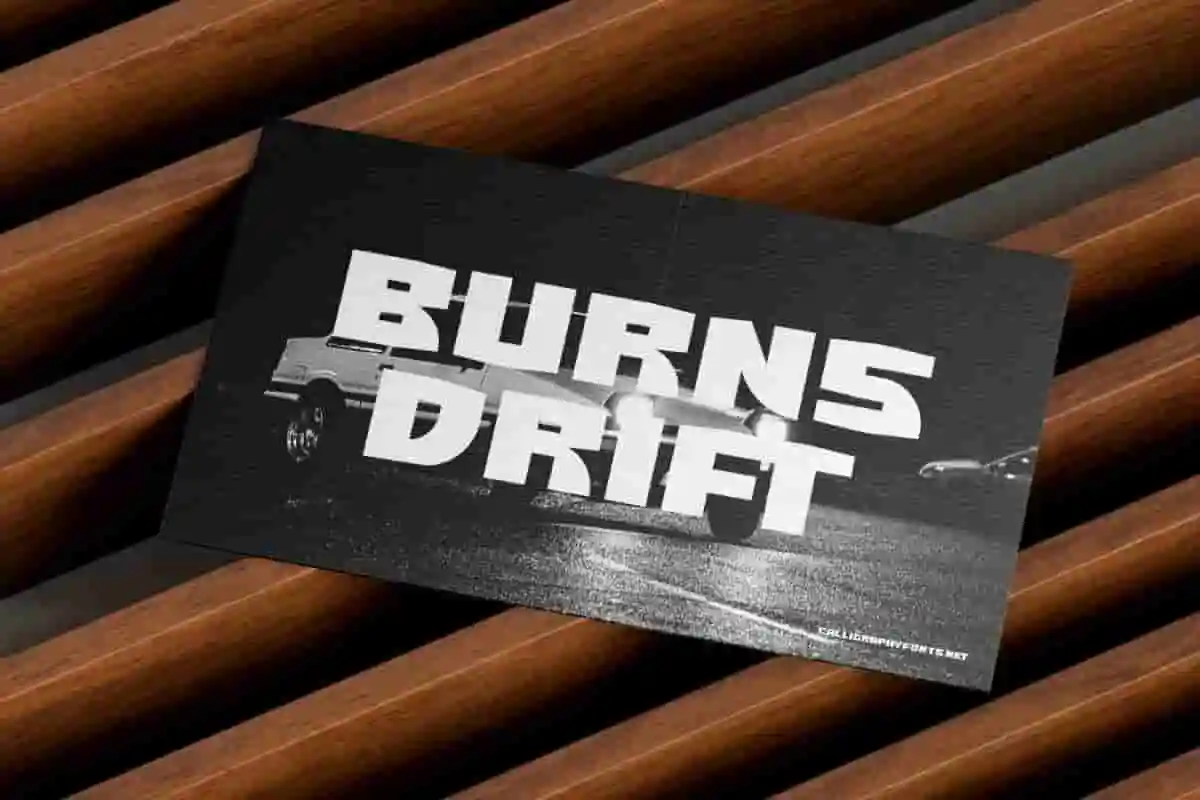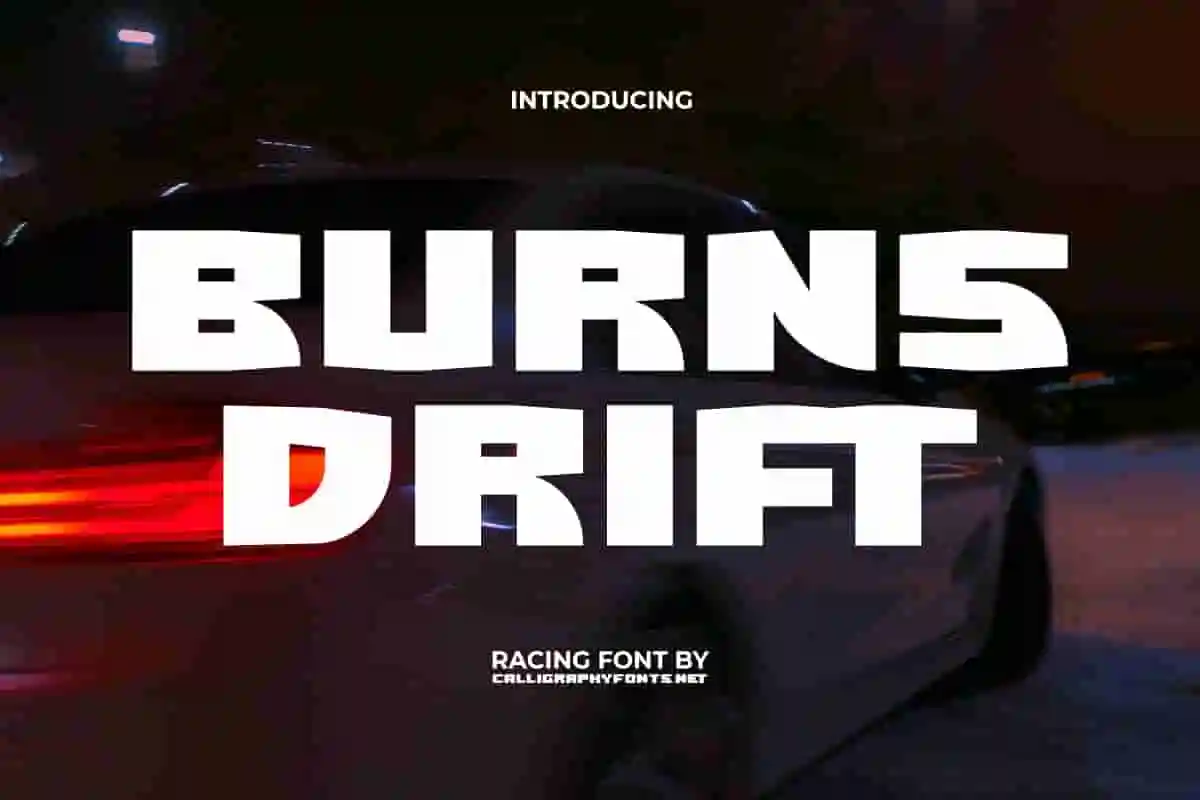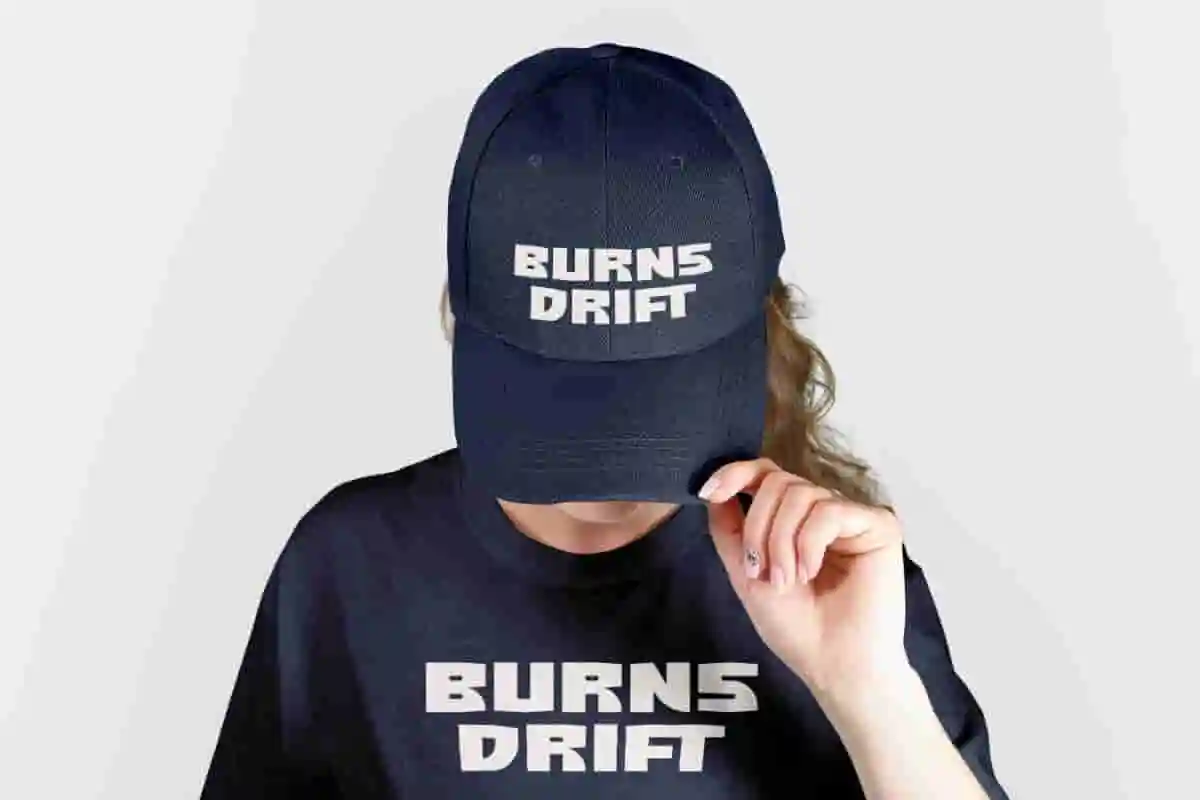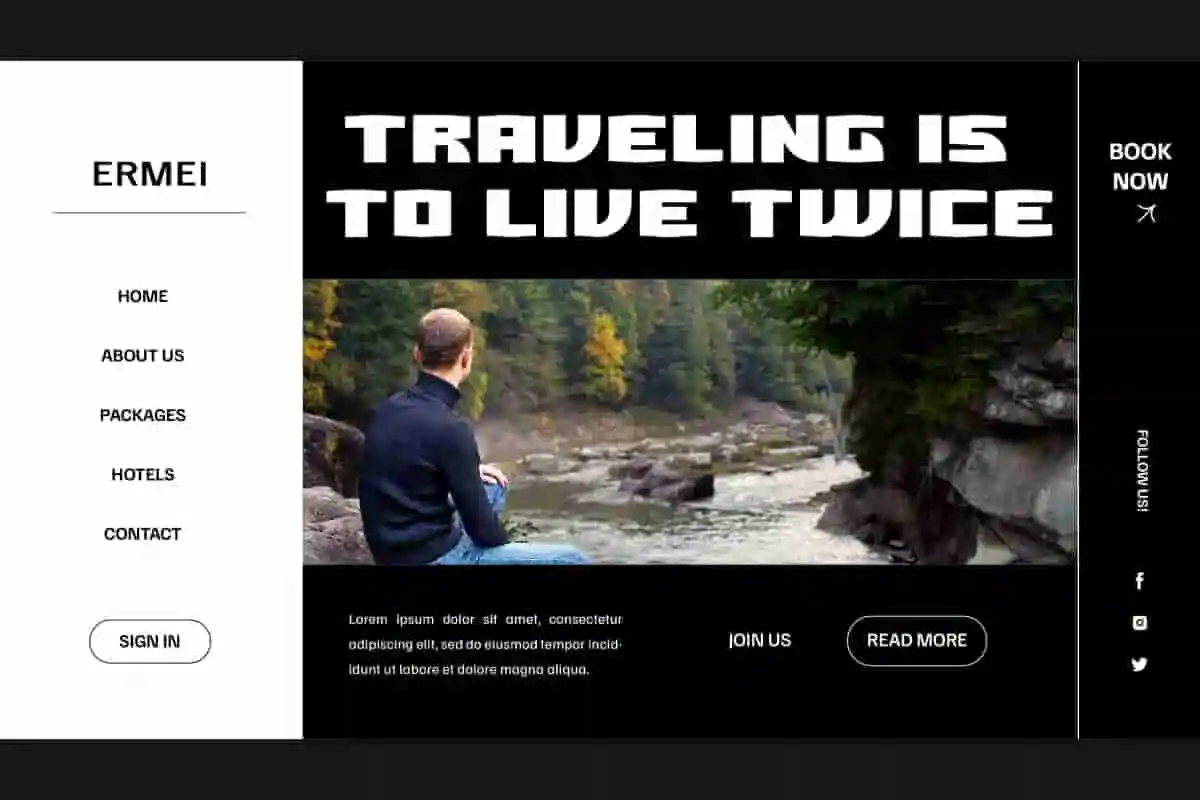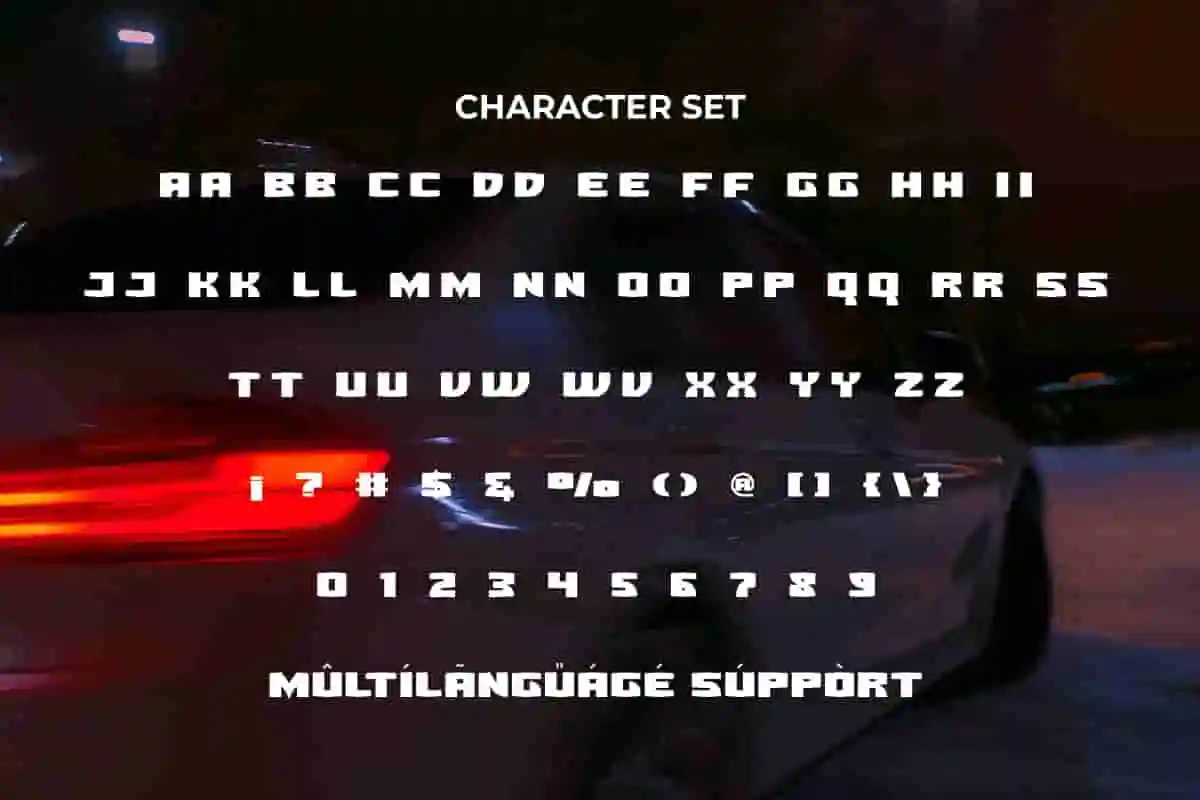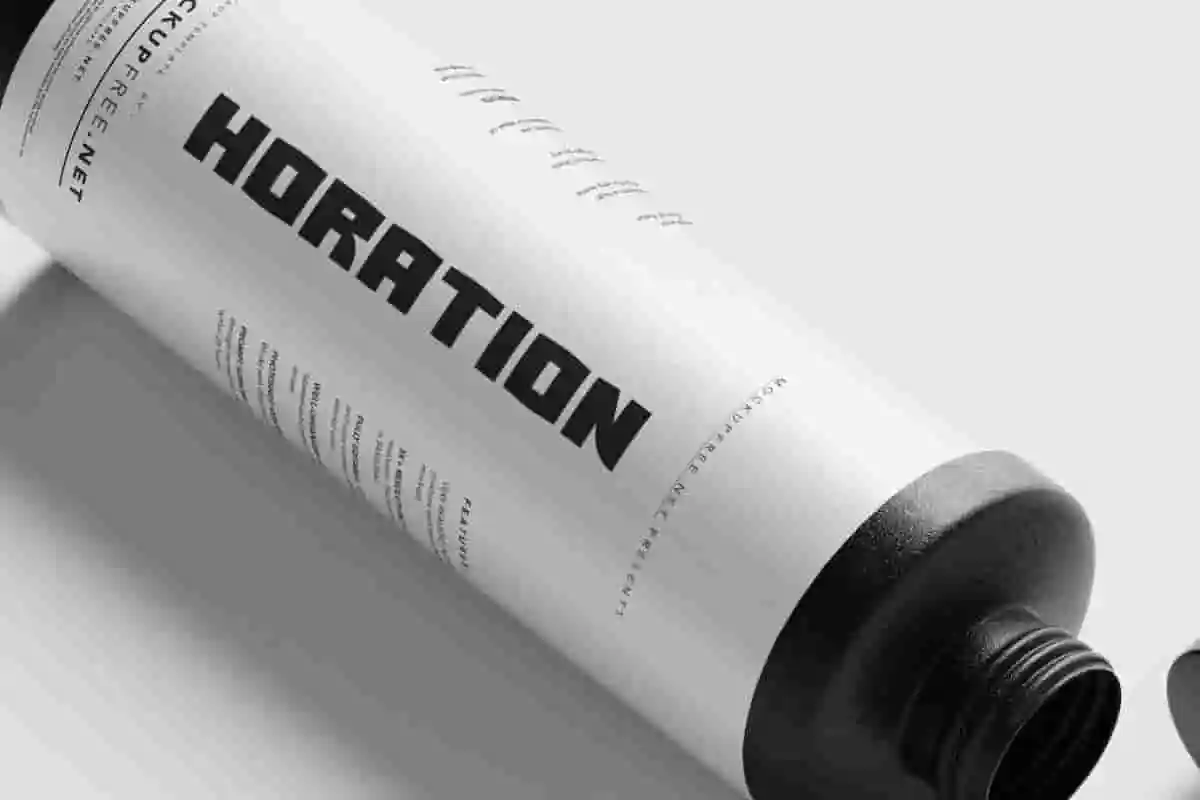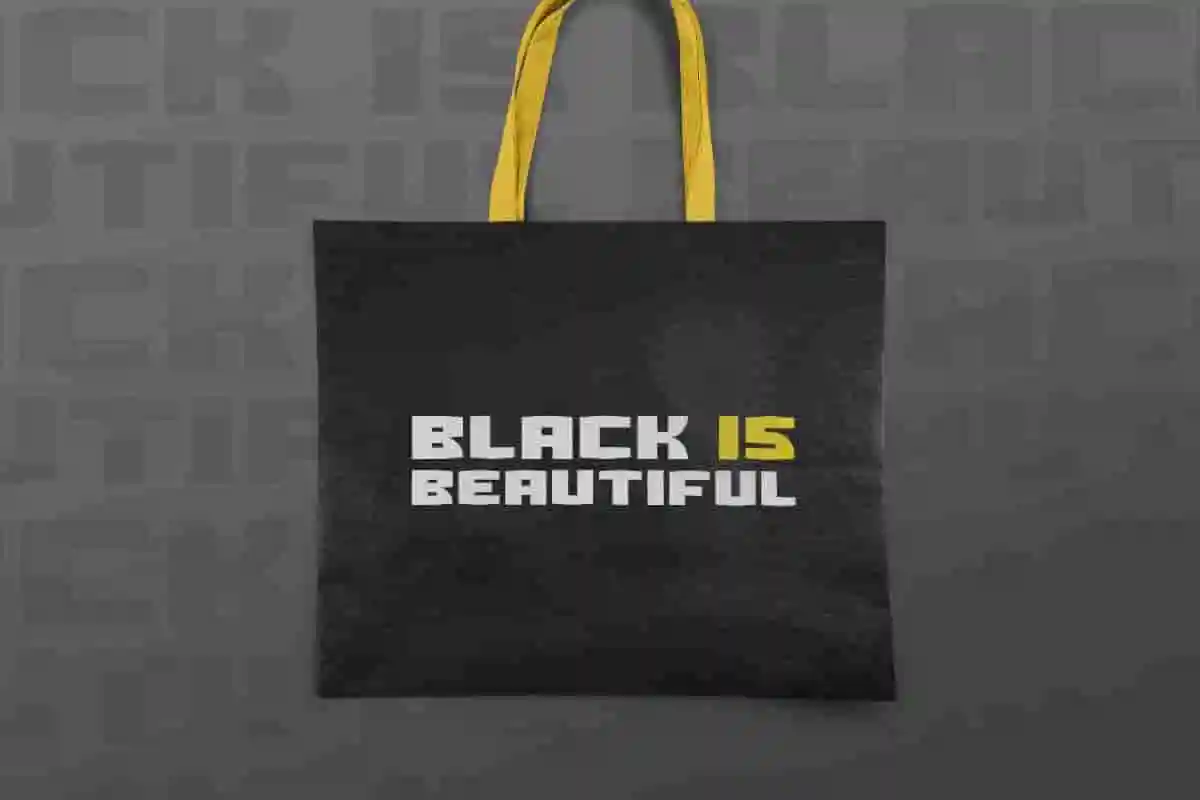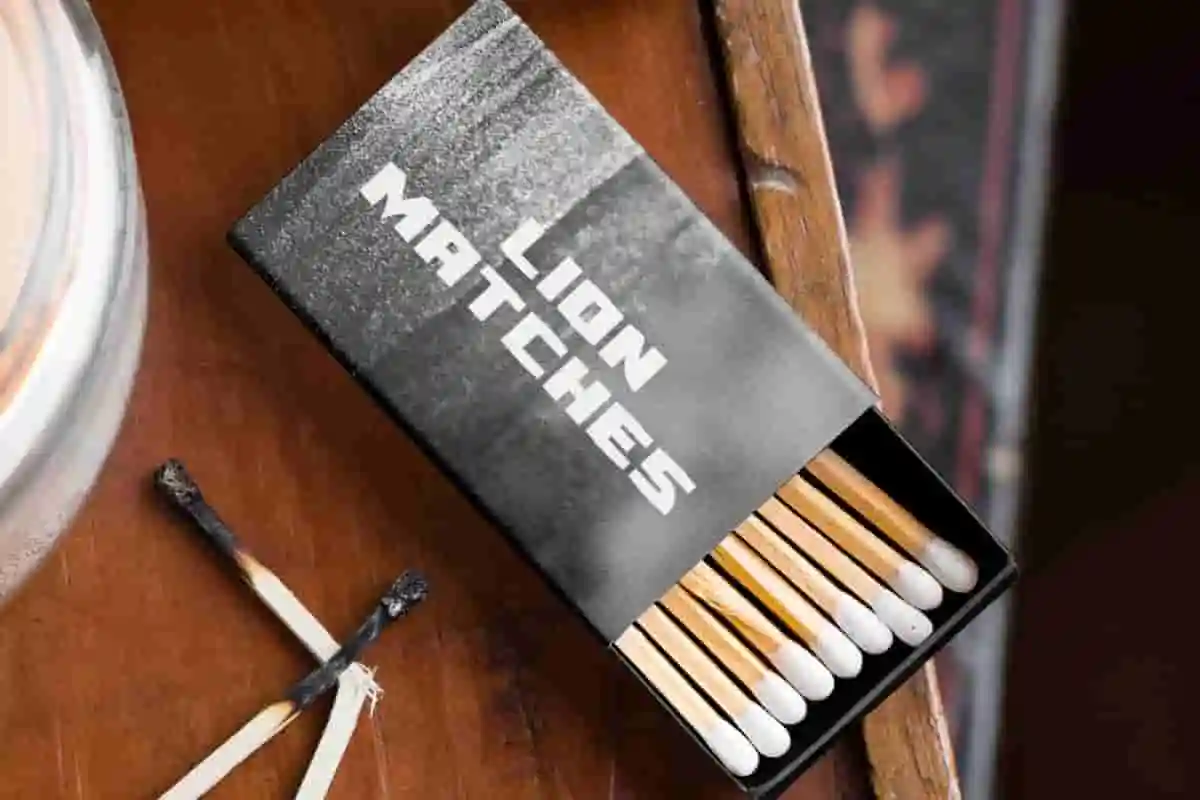
Burns Drift Display Font
Burns Drift Font is an amazing font with bold contrast created from a combination of geometric style with graffiti feel. It’s awesome for racing game, sporting events, etc
Burns Drift Font is a dashing racing themed font with quite thick contrast which is attractive because it is strong and bold. Don’t forget to ignite your enthusiasm by letting your creativity flow freely with this font! Use it for banner, blog, brochure, business card, cap embroidery, headers, heading, label, logos and monograms, packaging, poster, screen print, sticker, tags, web design, or up to you!
Looking for a distinctive, eye-catching font that adds personality and style to your projects? Meet Burns Drift Display Font — a bold and versatile typeface crafted to make your headlines stand out. Whether you’re designing posters, branding materials, social media graphics, or packaging, Burns Drift brings a dynamic, modern vibe with its unique letterforms and strong presence.
Ready to add a bold and dynamic touch to your projects? Introducing Burns Drift Display Font — a stylish and modern typeface designed to captivate and impress. Perfect for branding, posters, social media, packaging, and more, Burns Drift features distinctive letterforms that bring personality and energy to every word.
Looking for a display font that combines boldness with artistic flair? Burns Drift Display Font is here to transform your creative projects with its strong personality and modern style. Perfect for branding, posters, social media graphics, packaging, and more, Burns Drift features sleek, distinctive letterforms designed to grab attention and elevate your message.
• Bold, clean, and unique
• Highly legible in both digital
Burns Drift Font introduces a unique overall letterform and feels different. It is perfect for adding a touch of personality to your designs. The idea of ​​geometric style with a blend of sporty looks produces boldness in a concise style. Perfect for automotive, clothing brand, fashion, games, graphic design, menswear, outdoor sports gear, photography, smokables, sport race, tools brand, and much more.